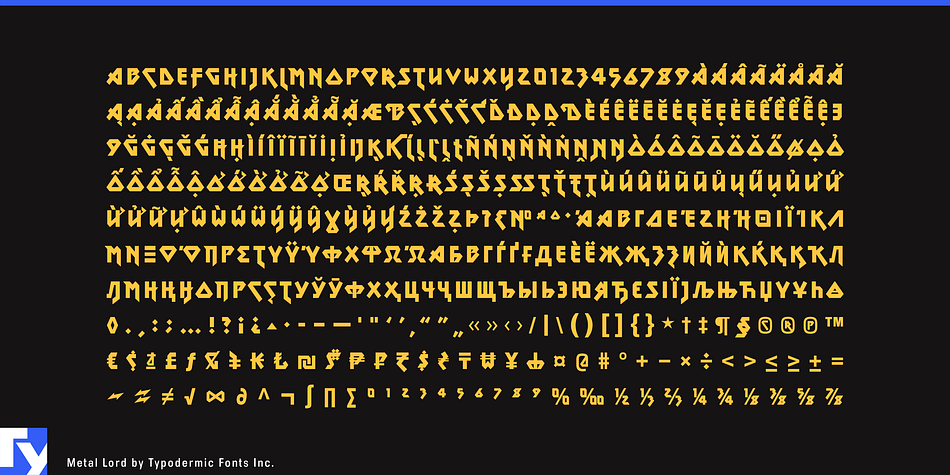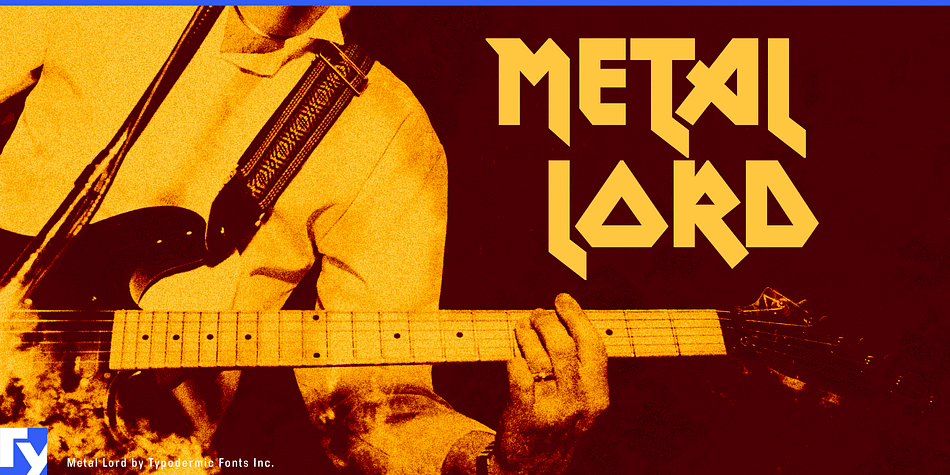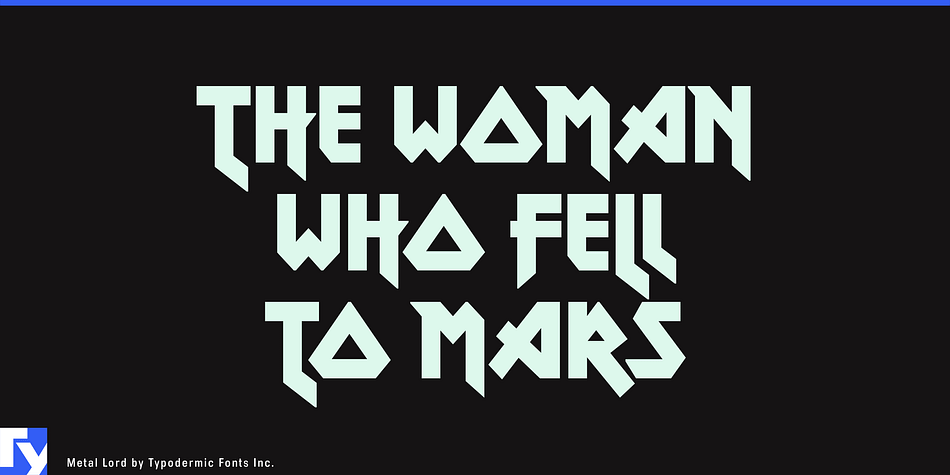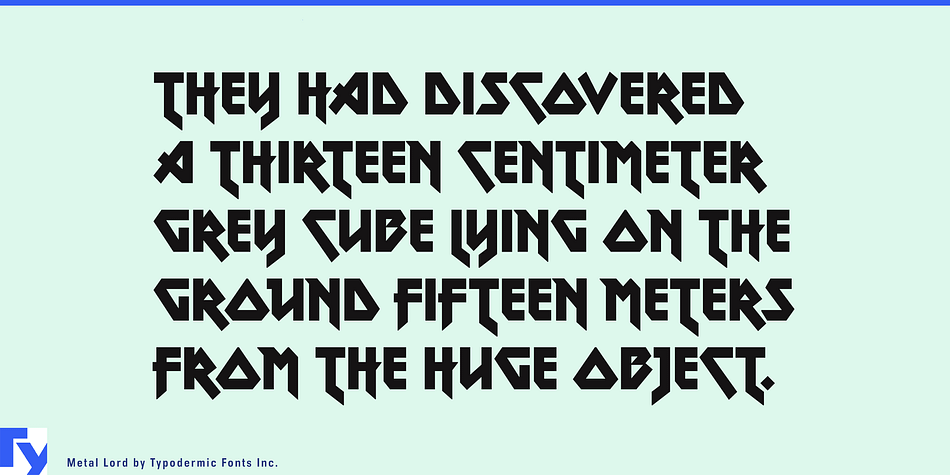
Metal Lord is a novelty font published by Typodermic Fonts Inc.
Please read the following description using your internal monologue with an echo effect. Metal Lord is a an angular metal font created in 1996. Metal Lord has been completely redrawn, spaced and kerned. It’s a bit heavier than it used to be and thanks to the discovery of additional reference material is has a slightly different design. The original version of Metal Lord was loosely extrapolated from the letters in the Iron Maiden logo using the powers of imagination . . . and the powers of Satan. You hardcore Maiden fans may recognize some of the letters from their late 1980’s official calendars. I later discovered that same font was used in 1976 for the poster for David Bowie film, The Man who Fell to Earth as well as on a real estate paperback book cover from 1979. With these extra resources I was able to piece together a better representation of this font. I still haven’t been able to figure out who designed the original: if you find out please let me know. The last version contained a rather ridiculous lowercase script S which I spotted the 1988 calendar. I moved it out of the main set but you can still get at it if you want. In OpenType apps, you can select it using the ‘stylistic alternates’ feature but I don’t recommend it. If you use Metal Lord in an OpenType savvy application, you’ll see magic stuff going on: letters occasionally flip, tuck and grow little flags to fit nicely together, but not so much as to be distracting. I’ve added lots of punctuation, symbols, fractions and numeric ordinals, to the delight of high school teachers everywhere, I’m sure.